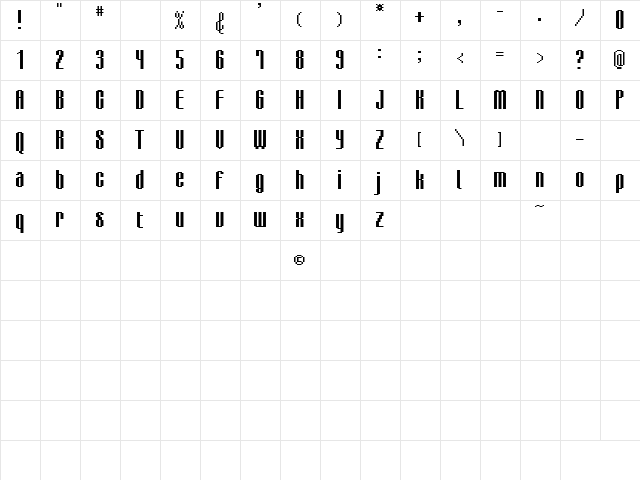
BM delico A16
Design Context for BM delico Typeface
BM delico is a composed and adaptable typeface that performs quietly and consistently across a wide range of design contexts.